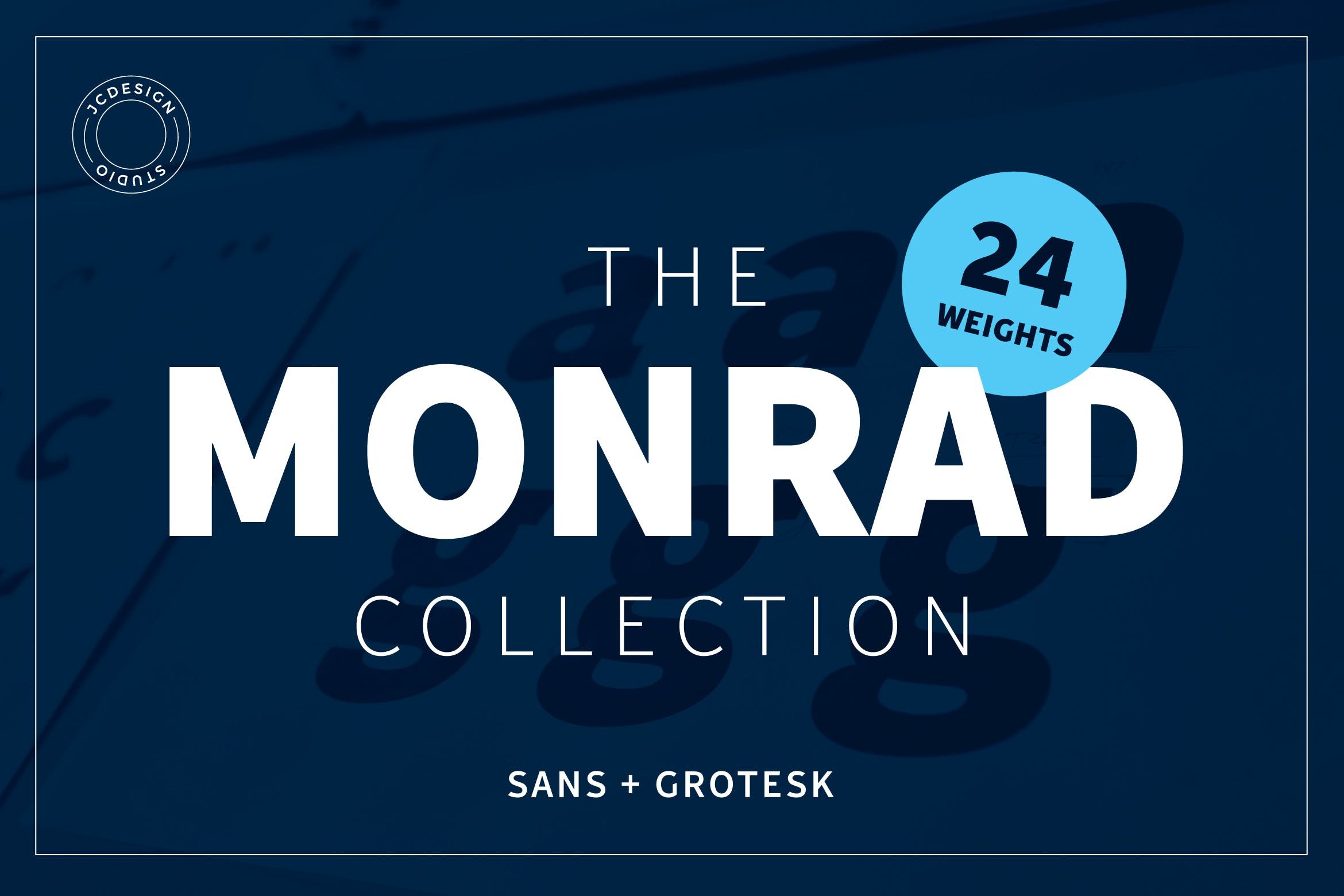
Monrad Collection Font
Monrad Collection Font is perfect for Scandinavian brand identities, minimalist design projects, contemporary architecture presentations, Nordic lifestyle campaigns, modern furniture branding, clean tech company materials, sophisticated corporate communications, and refined cultural institutions.
What makes Monrad Collection Font exciting is its masterful embodiment of Nordic design philosophy that captures the essence of Scandinavian minimalism through precisely crafted letterforms that celebrate functional beauty and timeless simplicity. The font features clean geometric structures with subtle Scandinavian influences that reflect the perfect balance between form and function found in Nordic design traditions. Its sophisticated restraint and cultural authenticity make it perfect for brands that want to communicate quality, sustainability, and the understated elegance that defines Scandinavian aesthetic values while creating memorable experiences that honor the Nordic commitment to thoughtful design and purposeful living.
Monrad Collection Font family includes comprehensive Nordic weights ranging from Ultra Light to Black, typically featuring Light, Regular, Medium, Bold, and Heavy variations with corresponding italic styles. The collection often includes condensed versions and extended character sets with Scandinavian language support, providing designers with complete flexibility for creating sophisticated international branding that honors Nordic design principles and contemporary minimalist aesthetics.